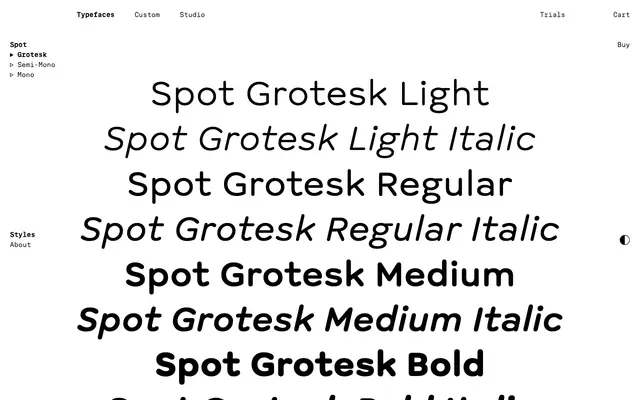
Spot Grotesk
Spot Grotesk specimen from Schick Toikka
Spot's proportional flavour: a typewriter-derived sans in four weights with italics, with the Mono's warmth but without fixed character widths.
Spot Grotesk is the proportionally spaced flavour of the Spot family. It carries Spot Mono's appeal of provisionality, austerity and authenticity, including the uniform stroke width, rounded ends, distinctive dots and large x-height, but trades fixed character widths for proportional rhythm. Four weights from Light to Bold with matching italics suit body copy, captions and marginalia in small sizes and friendly display work at larger sizes. It pairs with Spot Mono and Spot Semi-Mono, and a Spot variable font ties all three with weight, slant and spacing axes.
The proportionally spaced flavour of Spot, sharing the family's typewriter origins (uniform stroke width, rounded ends, distinctive dots, wide proportions, large x-height) without fixed character widths.